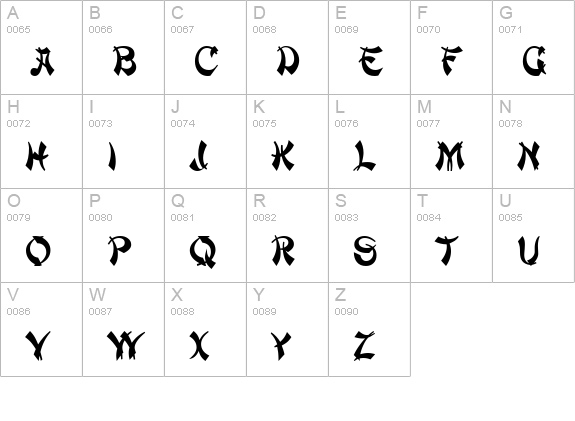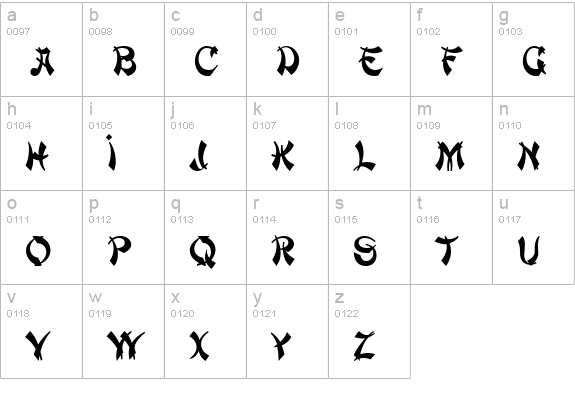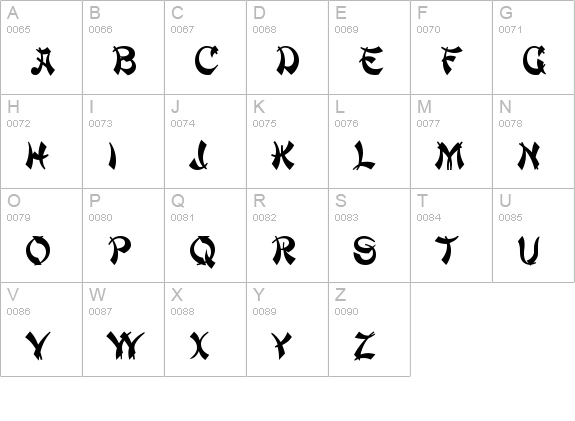
TR ChowMein Font Details
The TR ChowMein font is a unique and stylish typeface that combines elegance with a touch of playfulness. With its sleek lines and modern look, this font is perfect for a variety of design projects, from branding to packaging to social media graphics. The TR ChowMein font is versatile and can be used for both headers and body text, making it a great choice for any project. What's even better is that the TR ChowMein font is completely free to download at FontsMarket.com. This means you can easily add this eye-catching font to your collection without any cost. Don't miss out on the opportunity to enhance your designs with the TR ChowMein font - download it today and bring your projects to the next level!